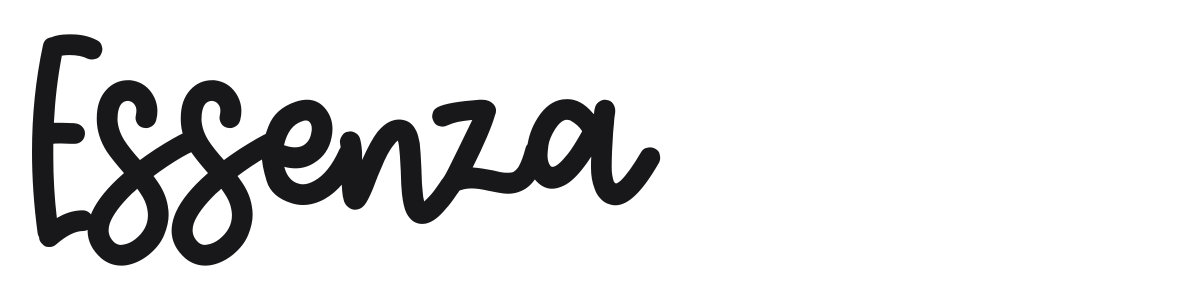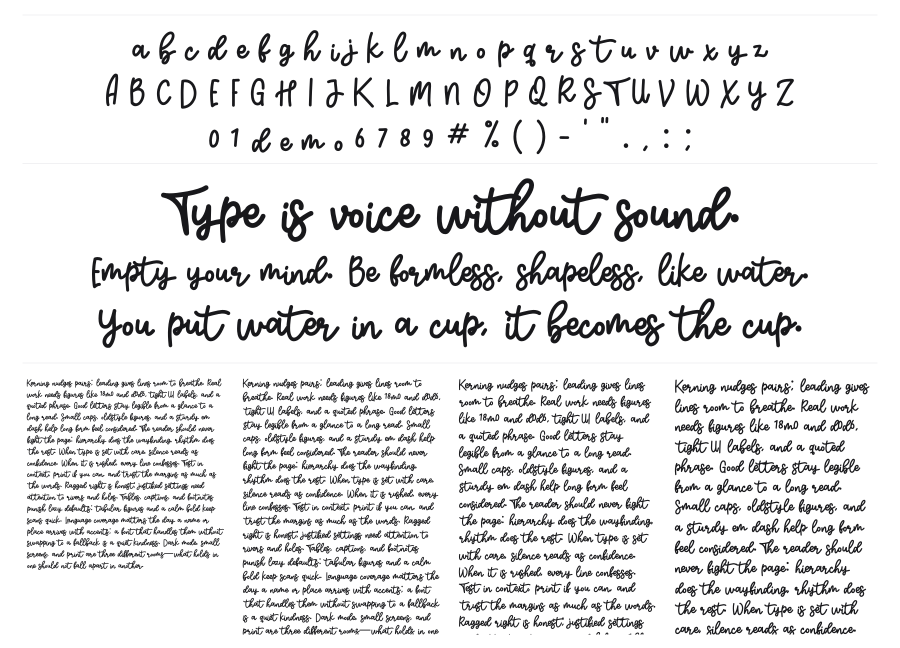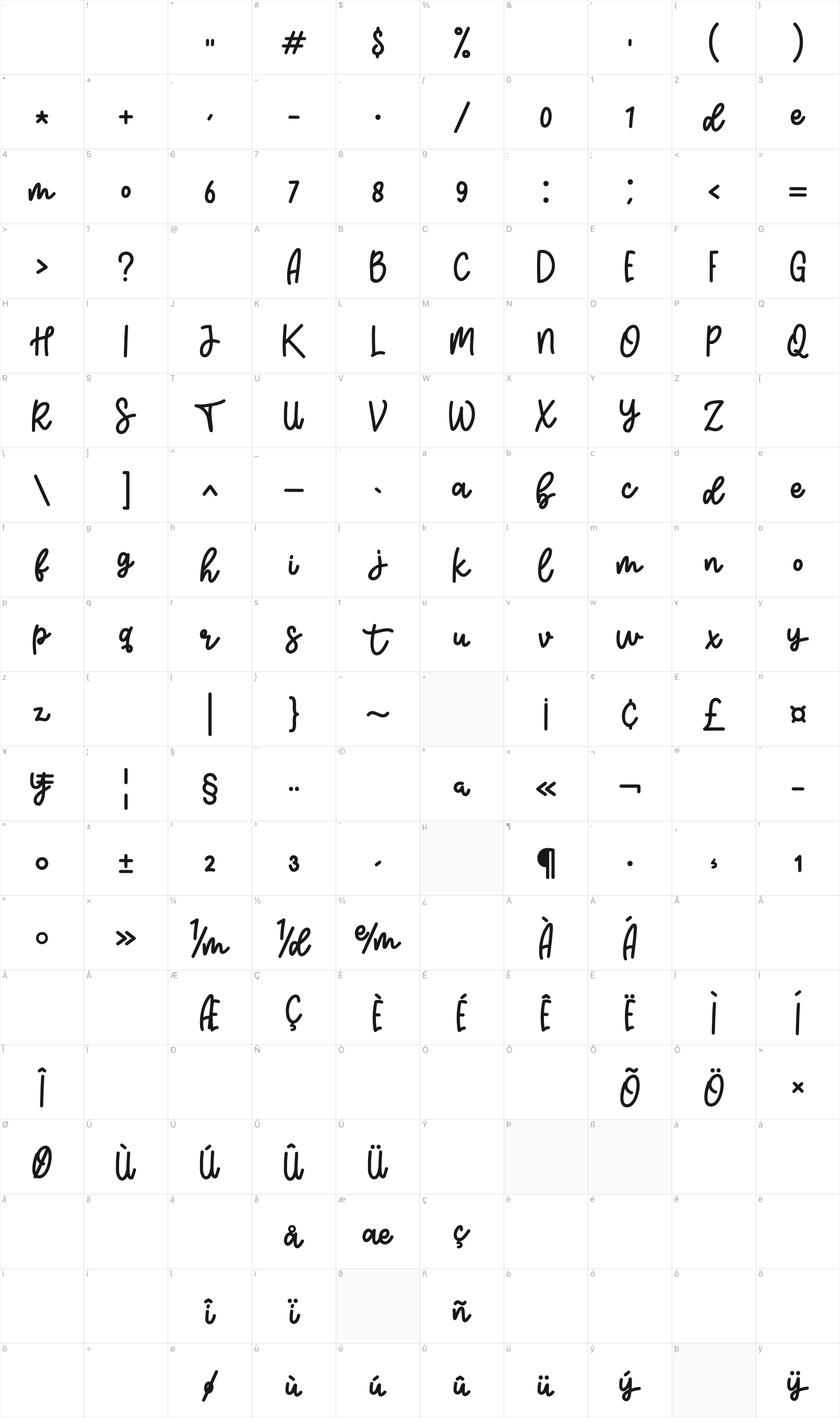
Essenza
Essenza is a monoline casual script with smooth connected strokes and a lively, handwritten rhythm. Clean edges and consistent weight keep it looking polished even as the flowing curves give it genuine warmth. It reads well at large sizes for wedding stationery, packaging, and lifestyle branding.